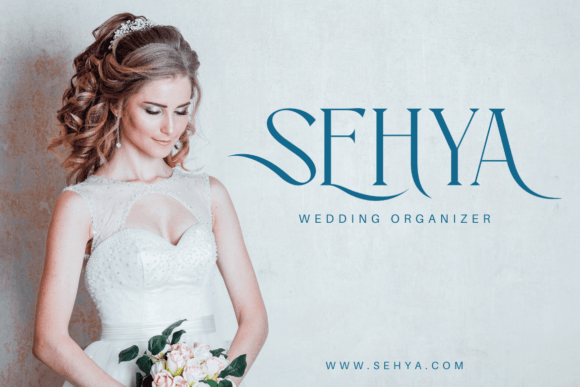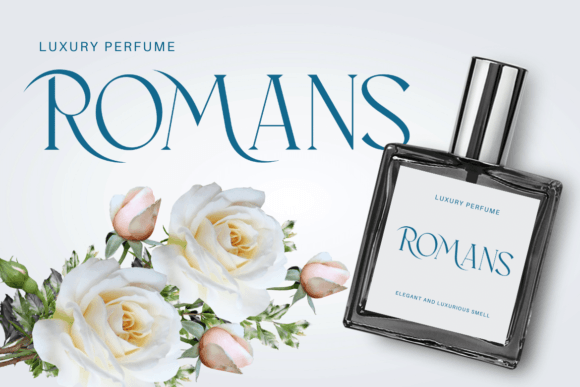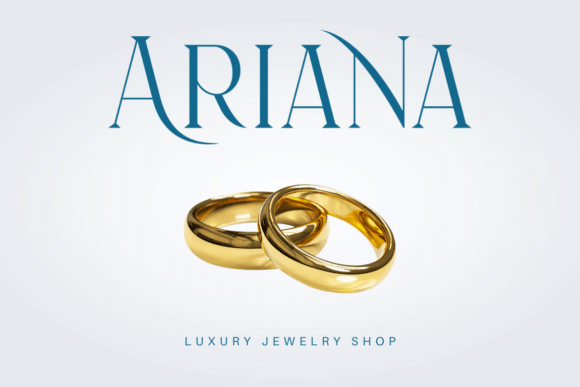
Introduction to Lonear Font
You’re in the middle of brainstorming a new design project, and you’re struggling to find the perfect font to bring it all together. The words, the colors, the textures – everything is coming together, but that one crucial element is missing. Suddenly, you stumble upon the Lonear Font, and your creative vision starts to take shape.
This elegant and bold serif font is more than just a design element – it’s a game-changer. With its incredibly versatile style, you can create stunning wedding invitations, beautiful stationery art, eye-catching social media posts, and much more. Whether you’re a seasoned designer or just starting out, the Lonear Font is a valuable addition to your design resource arsenal.
Key Features of Lonear Font
- High-quality design resource with a unique, modern style suitable for creative projects.
- Perfect for designers, artists, and creatives looking for a modern and unique font for their projects.
Honest Review: Lonear Font
I recently had the chance to work with the Lonear Font, and I must say it’s a great addition to any designer’s toolkit. With its sleek and modern aesthetic, it’s perfect for creative projects that require a touch of sophistication.
One of the things that stands out about the Lonear Font is its high quality and versatility. It’s available for free download, which is a major bonus for designers on a budget. The font is also incredibly easy to use, making it a great resource for both beginners and seasoned designers.
- ✨ High quality design that’s perfect for modern projects
- ✨ Easy to use and customize
- ⚠️ Limited character set, which may not be suitable for complex projects
- ⚠️ May not be compatible with older software or systems
Overall, I’m impressed with the Lonear Font and would definitely recommend it to designers looking for a high-quality, free design resource. Its sleek design and ease of use make it a great addition to any creative project.
Tips for Getting the Most Out of Lonear Font
To get the most out of Lonear Font, use it in creative projects where a unique and elegant font is required. You can also use it as a design element to add visual interest to your designs.
Lonear Font is commonly used in branding, marketing materials, and digital products. Its elegant and sophisticated design makes it perfect for creating a professional and polished look.